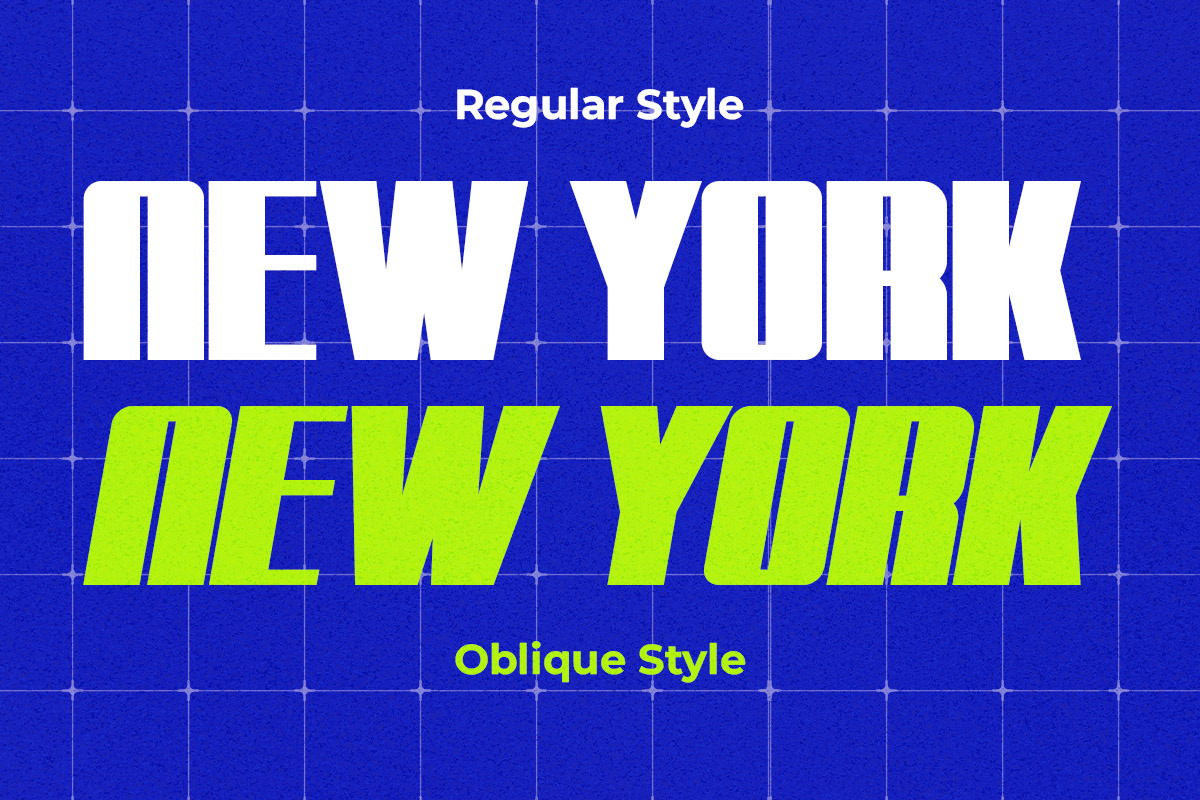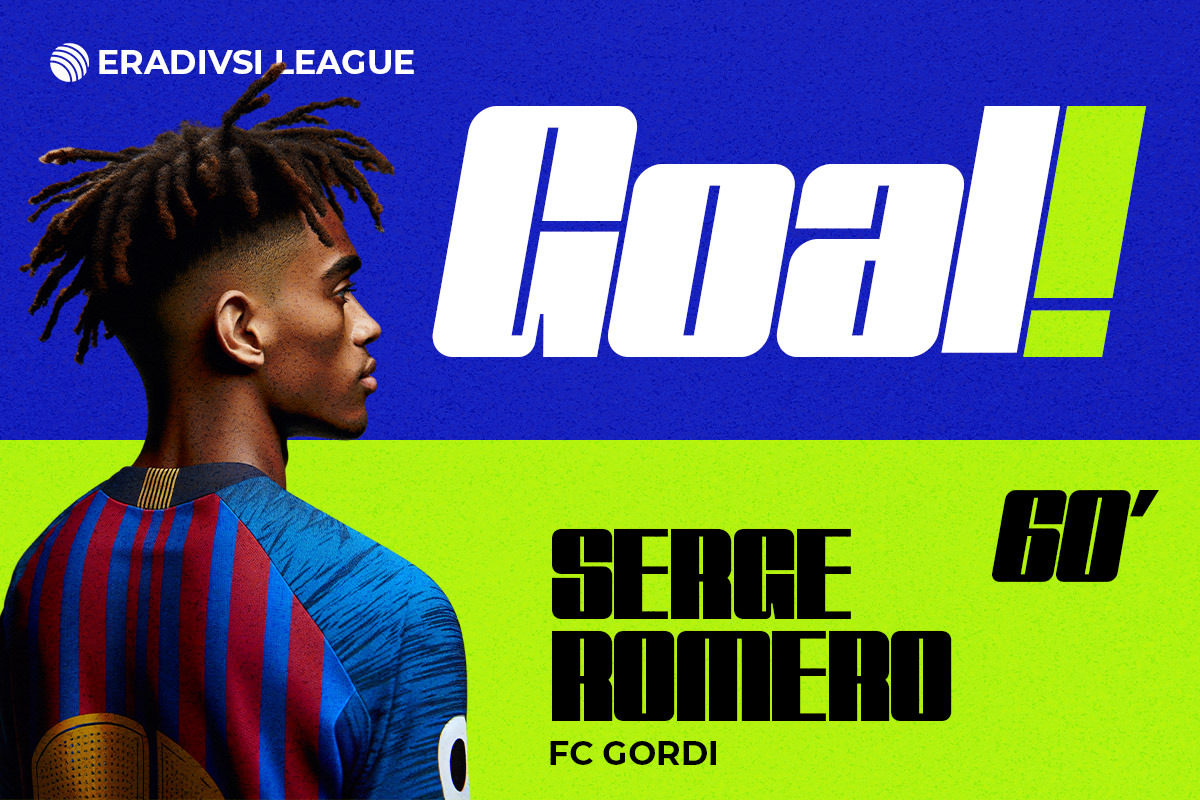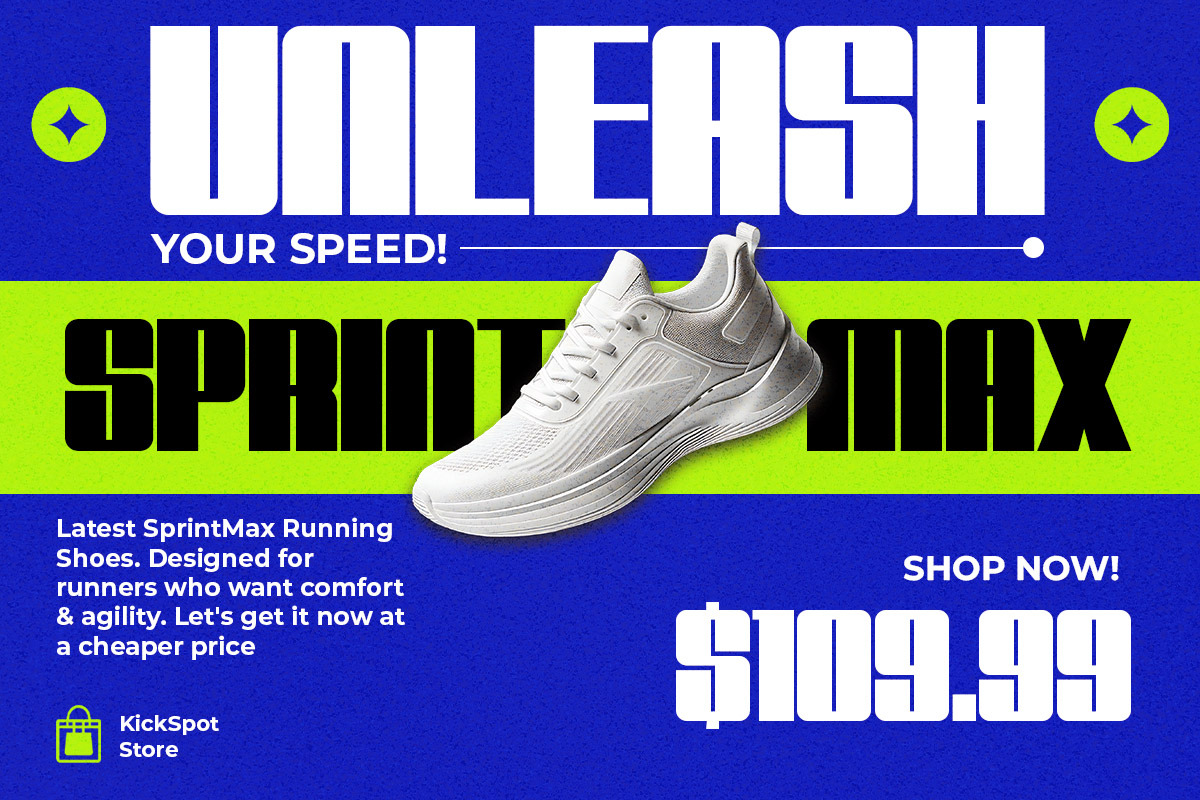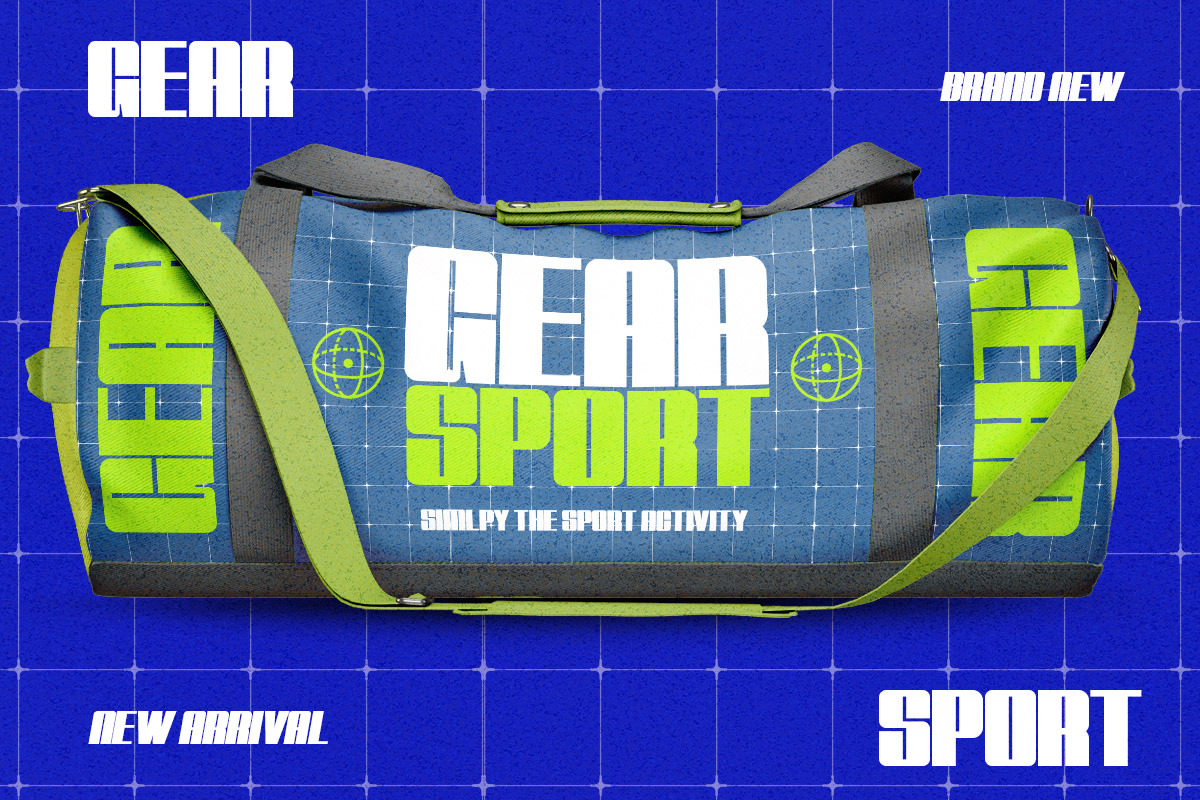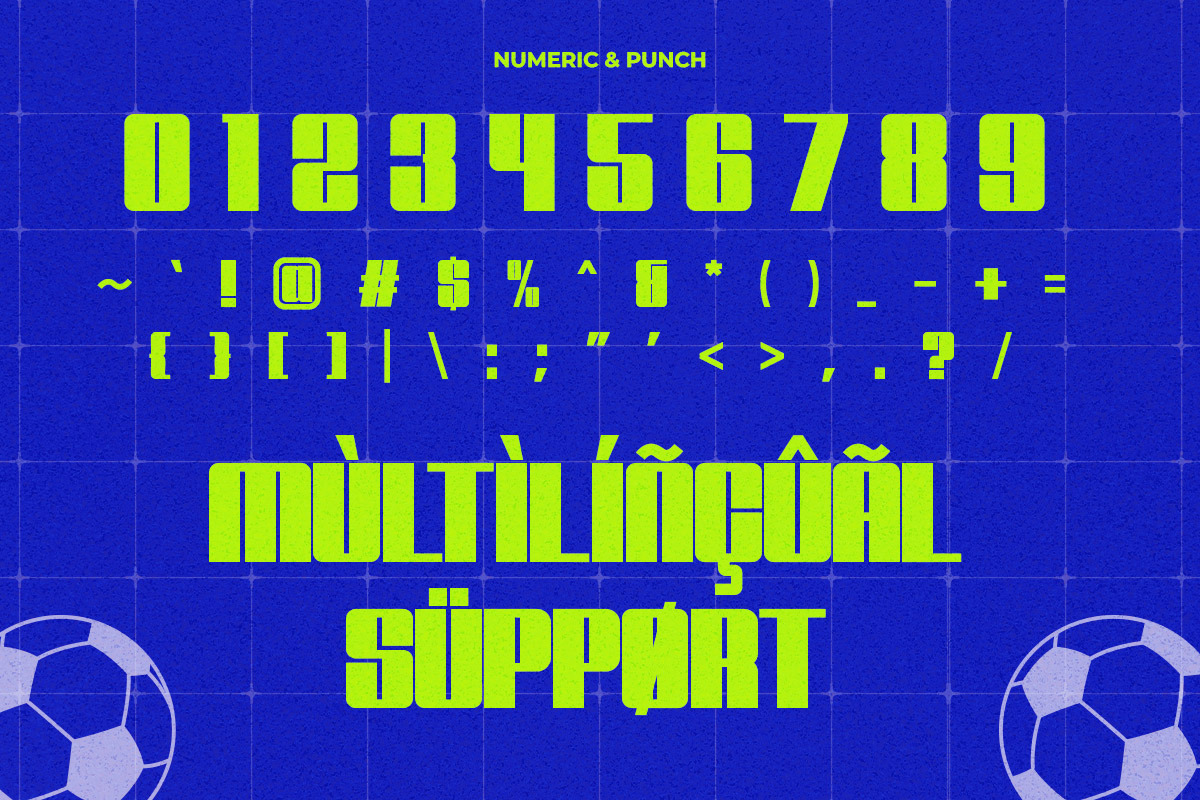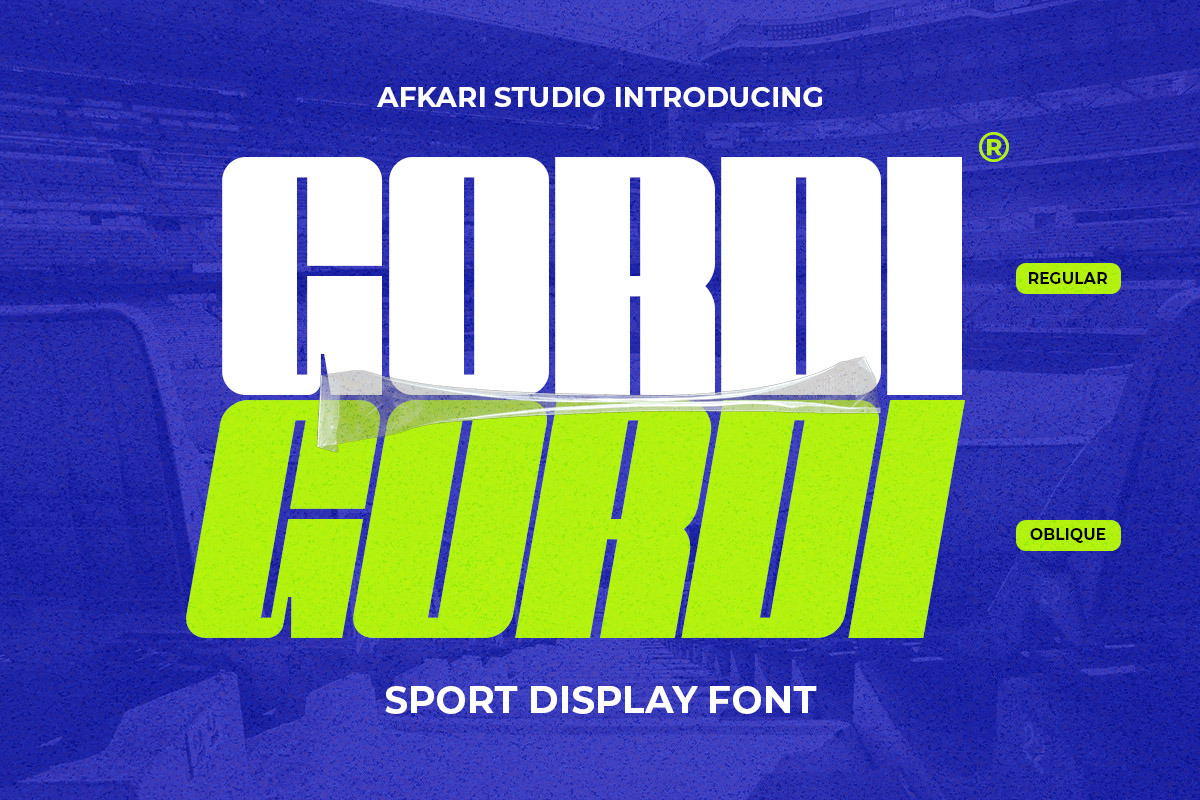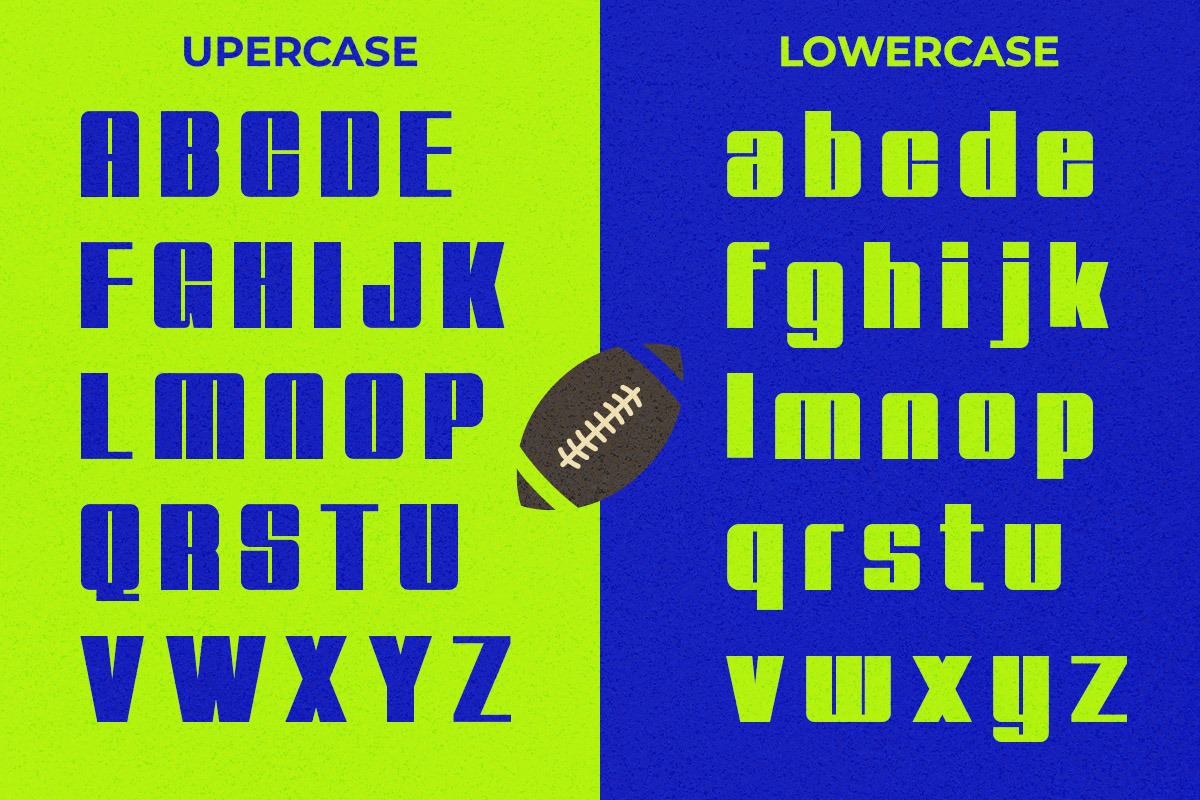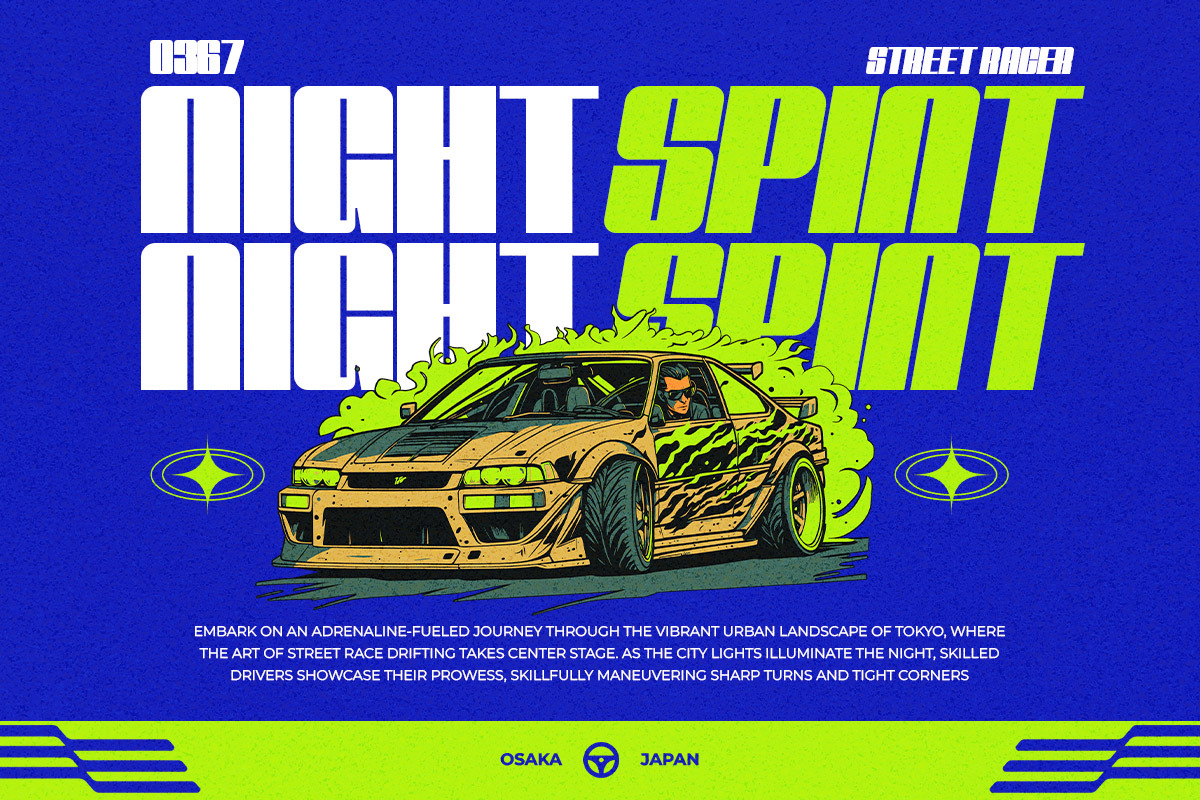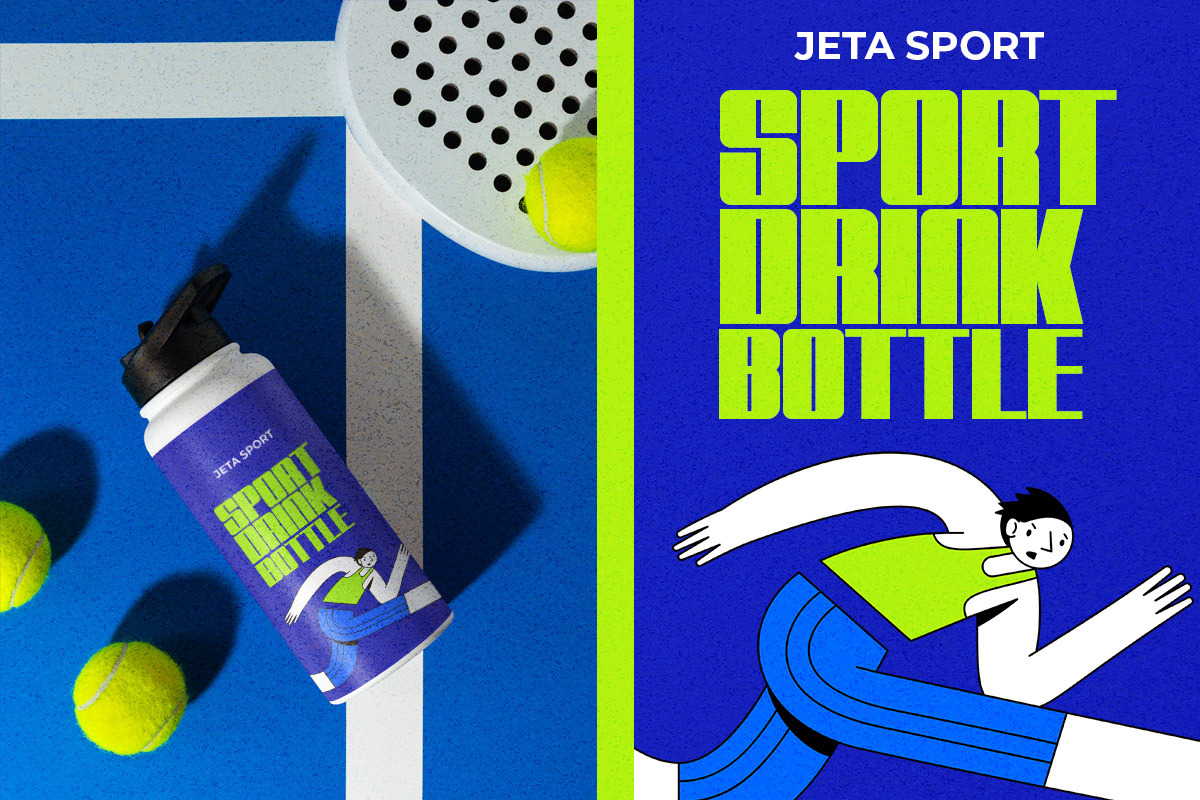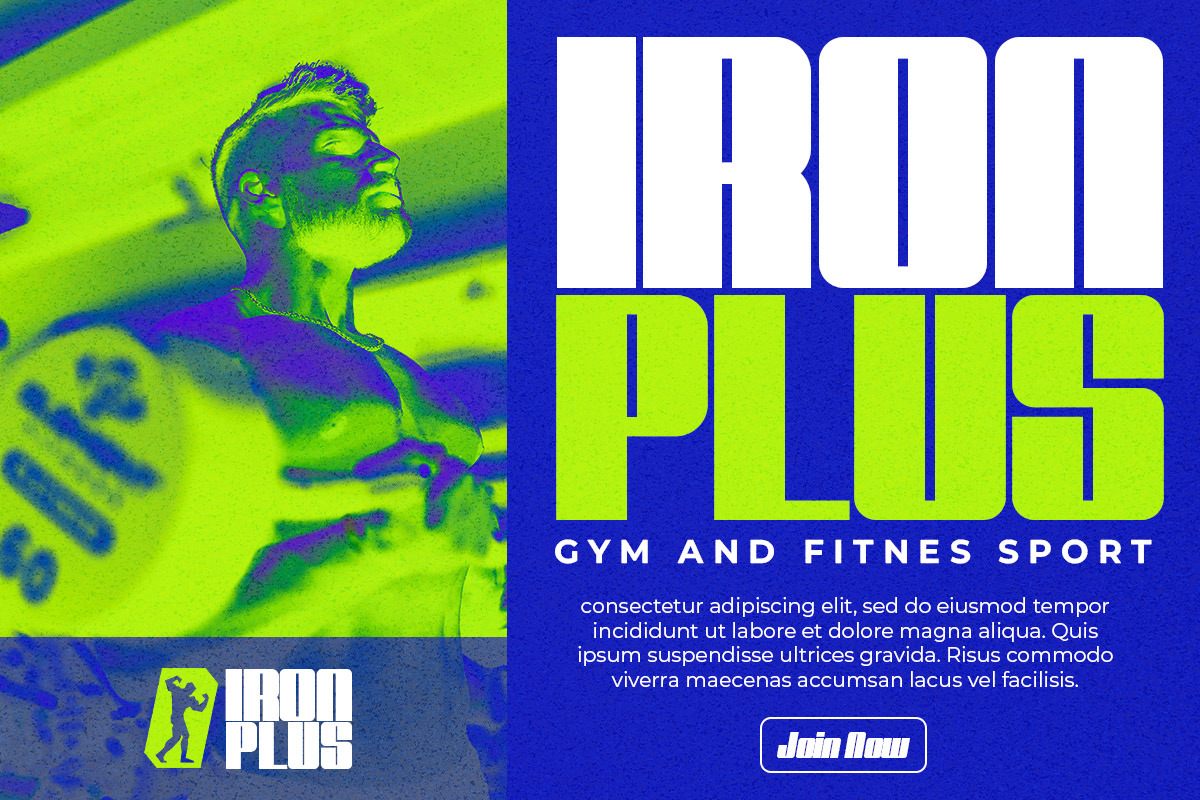
Gordi - Sport Display Font
Gordi is a bold and energetic sport display font designed to bring power, motion, and modern athletic style into your typography projects. Built with strong geometric shapes, sharp angles, and confident letterforms, Gordi delivers a dynamic visual impact that instantly captures attention. This font is perfect for designers who want to create sporty, competitive, and high-energy design compositions.
Gordi comes with two versatile styles: Regular and Oblique. The Regular style provides solid, balanced characters that work perfectly for bold titles, sports branding, and impactful headlines. Meanwhile, the Oblique style introduces a sense of speed and motion, making it ideal for designs that need a fast, aggressive, and action-driven appearance. Together, these styles allow you to create layered typography, modern sports branding, and eye-catching display layouts.
This sport display font is carefully crafted to maintain readability while delivering a strong visual identity. The letterforms are designed with consistent spacing and powerful proportions, making them highly effective for large typography and headline usage. Whether used for digital or print designs, Gordi ensures your message stands out with confidence and style.
- Uppercase, Lowercase, Number, and Punctuation
- Natural handwritten display style
- Mültîlíñgúãl Sùppört for; ä ö ü Ä Ö Ü ß ¿ ¡